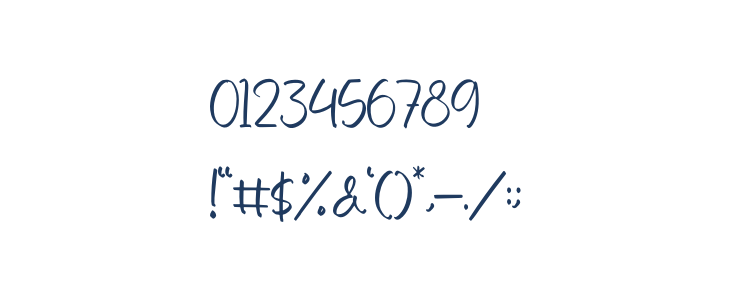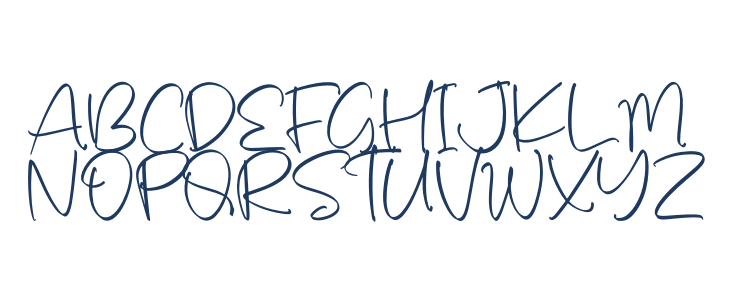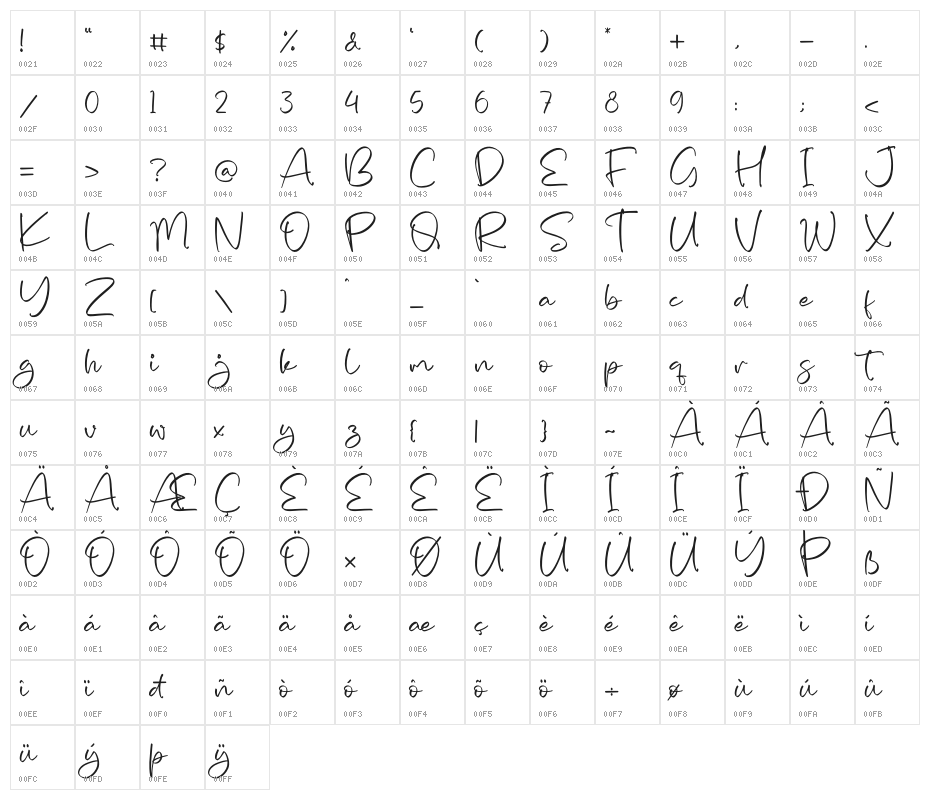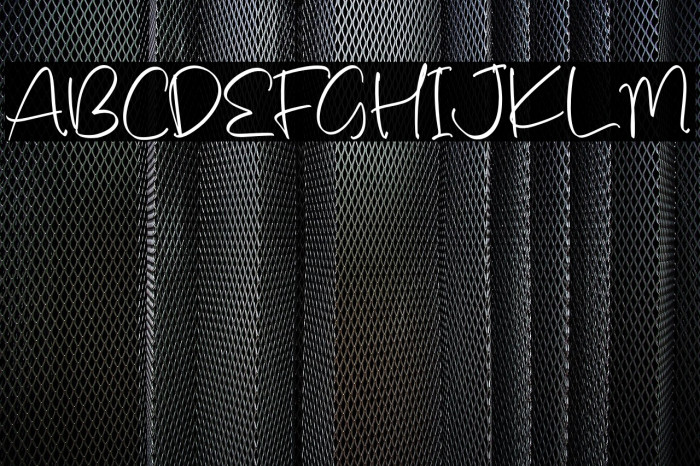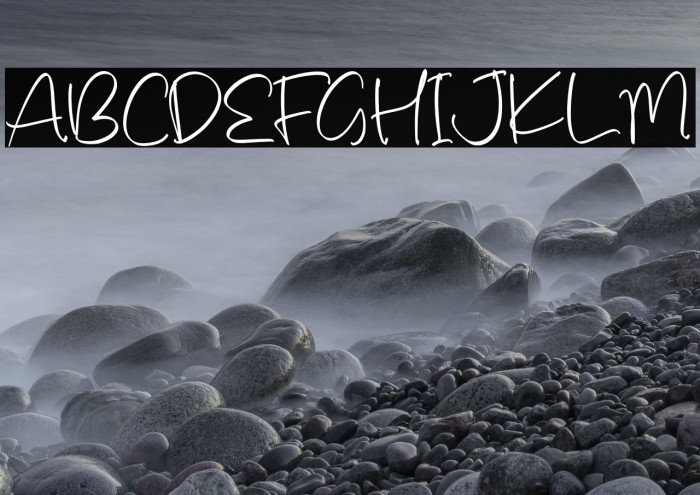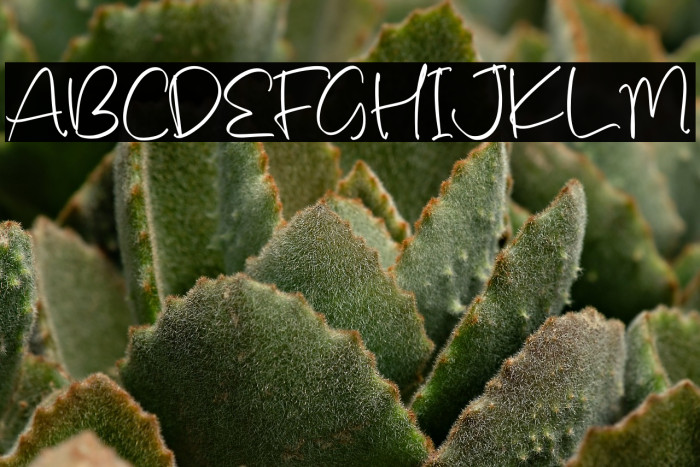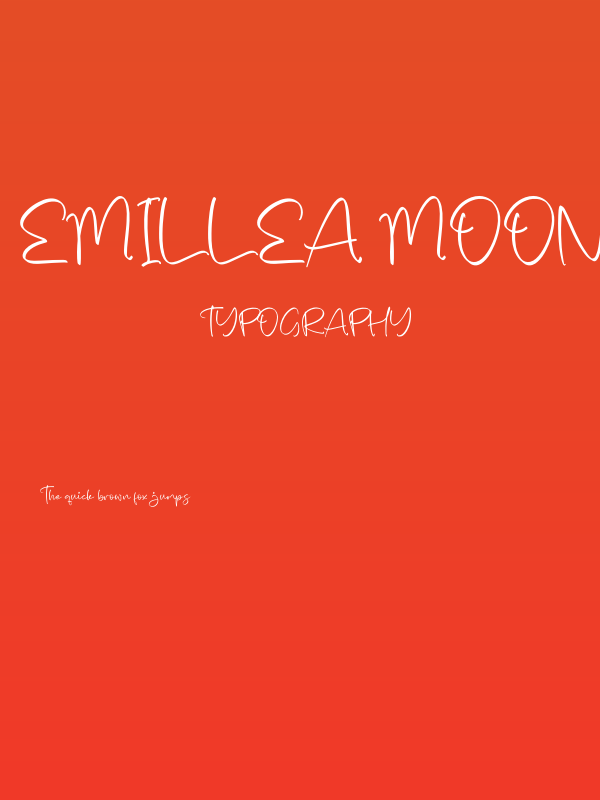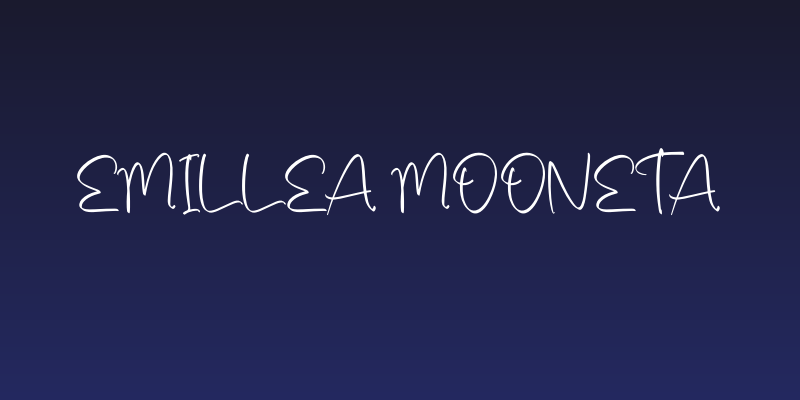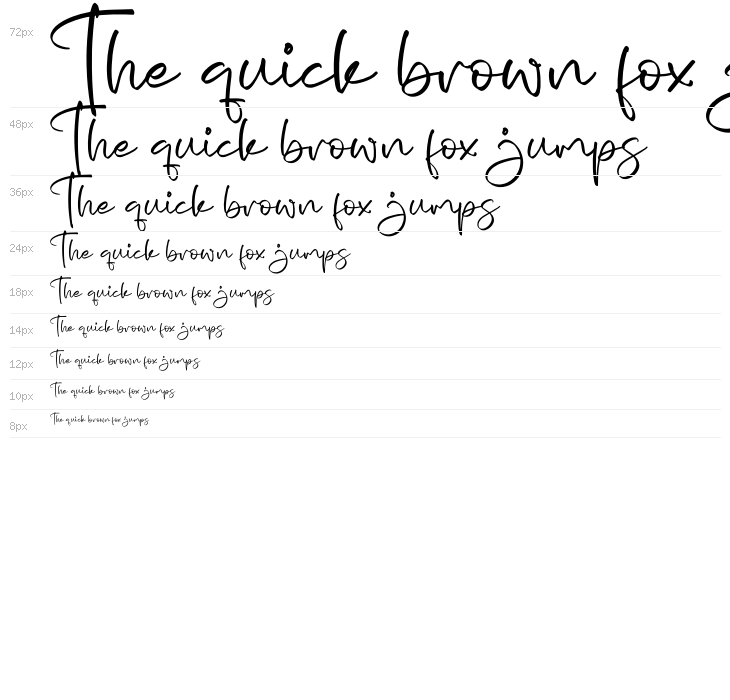
Emillea Mooneta Font
Emillea Mooneta Description
A playful, handwritten script font with irregular, flowing strokes and a casual, organic feel. The characters are loosely spaced, with varying heights and dynamic curves, giving it a lively and informal appearance.
| Overall Style | Decorative, Playful, Casual |
| Use Case | Logos, Headlines, Invitations, Social media graphics |
| Proposed Projects | Greeting cards, invitations, personal branding, social media graphics, informal posters. |